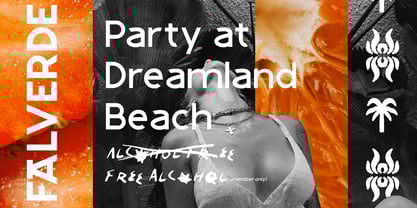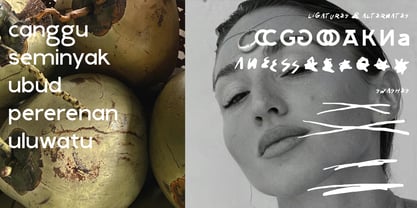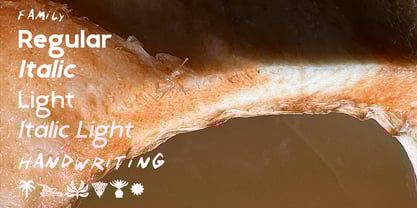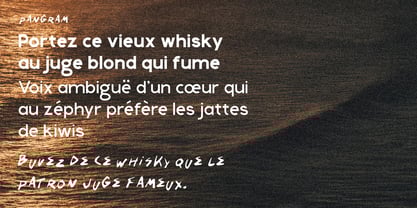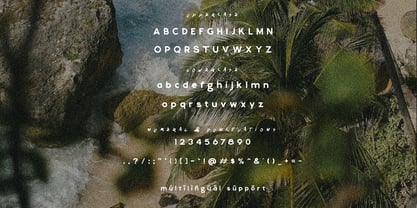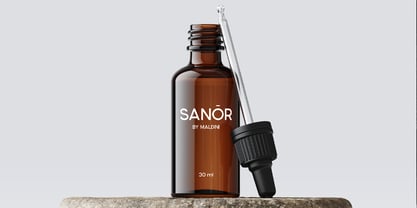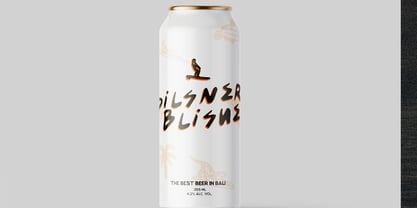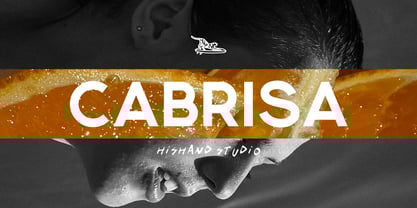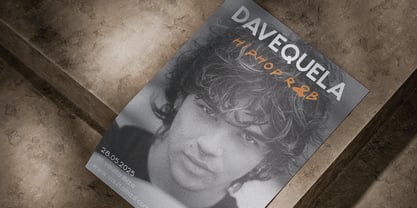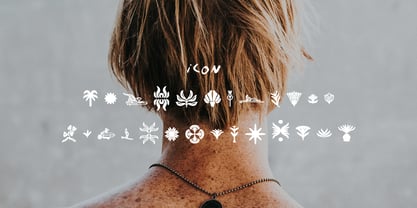
Cabrisa
The Cabrisa Font Family was designed by Putu Dody Permana and published by Hishand Studio. Cabrisa contains 6 styles and family package options. More about this family
Cabrisa Duo is a stylish font, featuring a clean sans serif and a natural handwritten script. Perfect for modern branding, social media, and editorial use. It includes 26 aesthetic icons to enhance creative projects with a minimal, elegant touch. Ideal for those seeking balance between structure and personality in design.
Complete with
• ligatures
• alternates
• regular
• italic
• light
• italic Light
• hand-writing
• icon
• kerning
• multilingual support